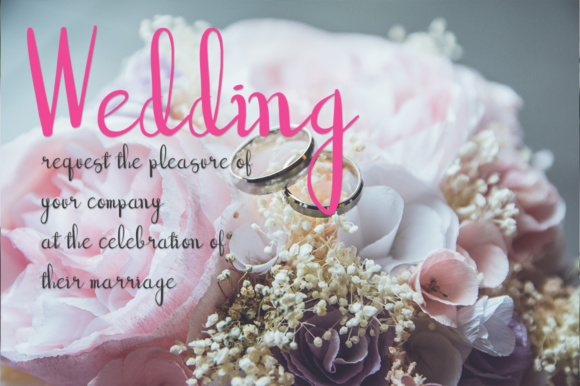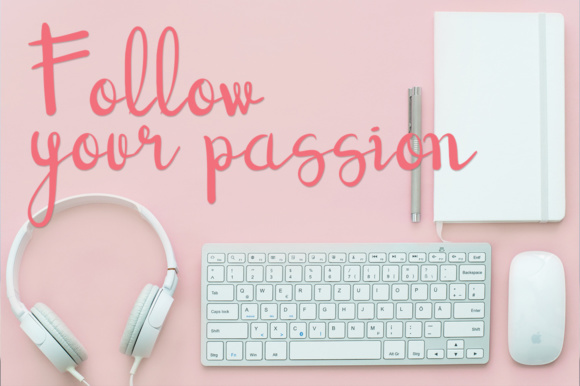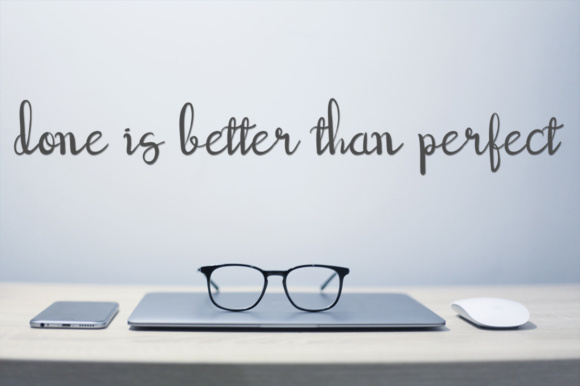
Introduction to Good Vibe Font
Good Vibe is a new, modern script with a handwritten style.
Good Vibe works great for a large range of projects such as: wedding invites with floral designs, a banner, personal branding and much more .